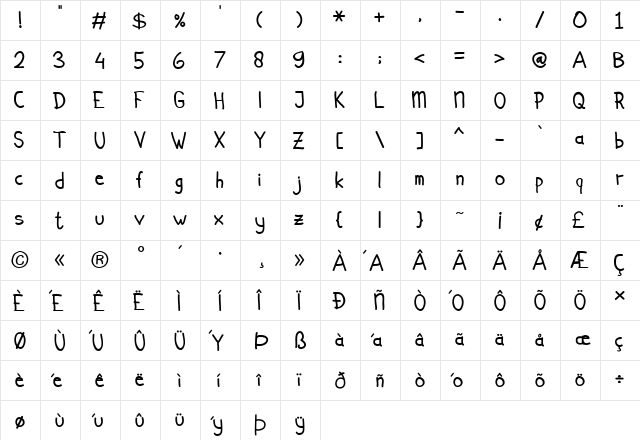
Simplicito Regular
Design Context for Simplicito Typeface
Simplicito is a composed and adaptable typeface that performs quietly and consistently across a wide range of design contexts.